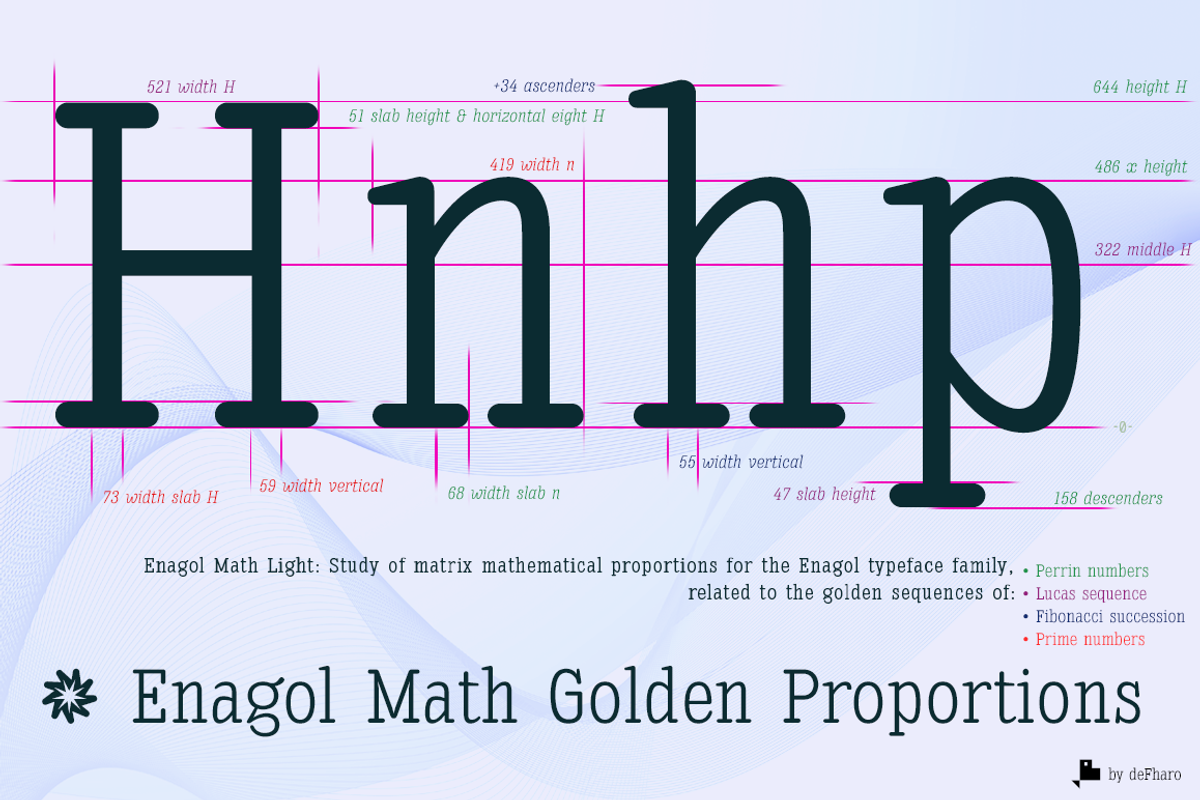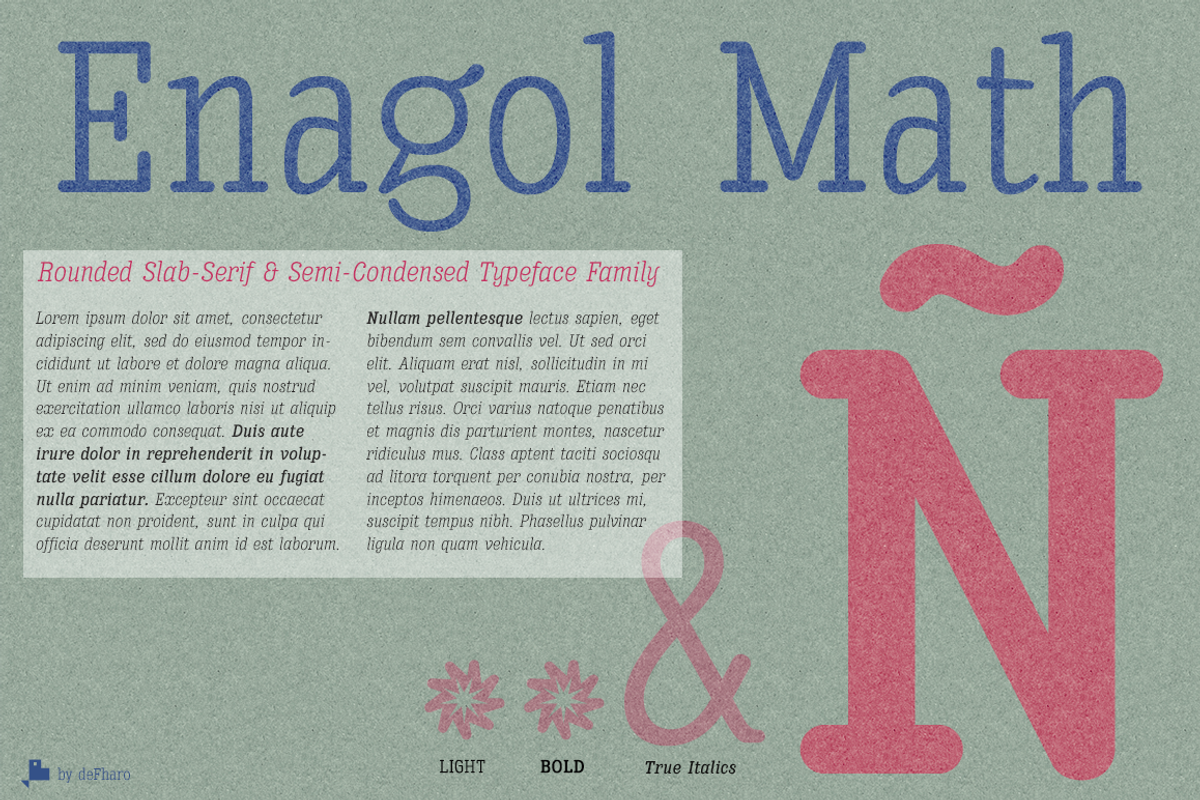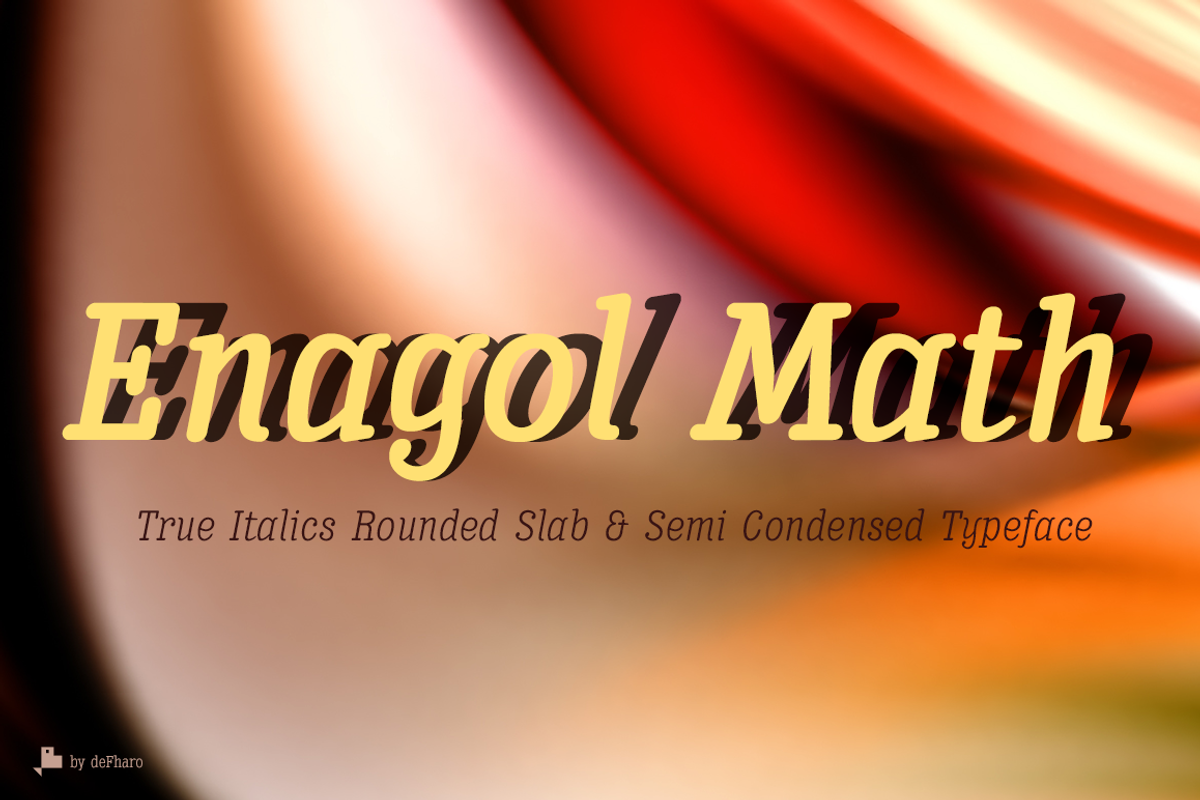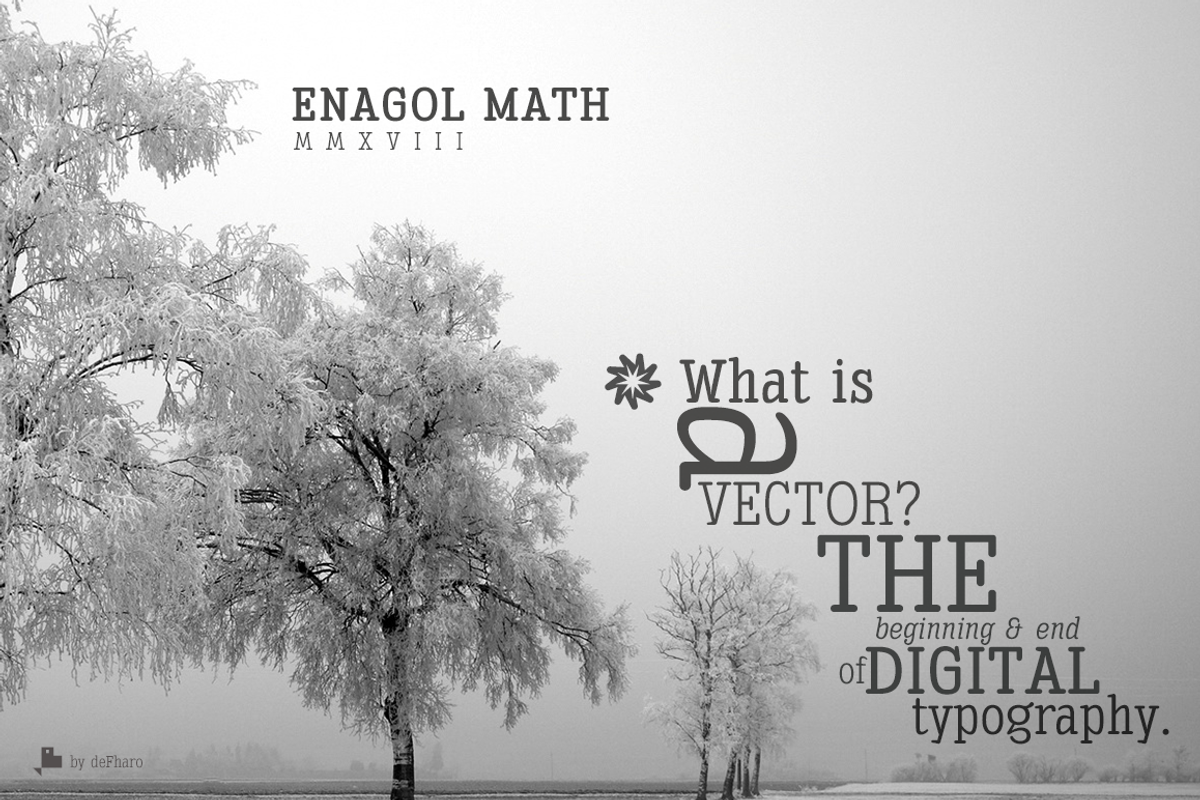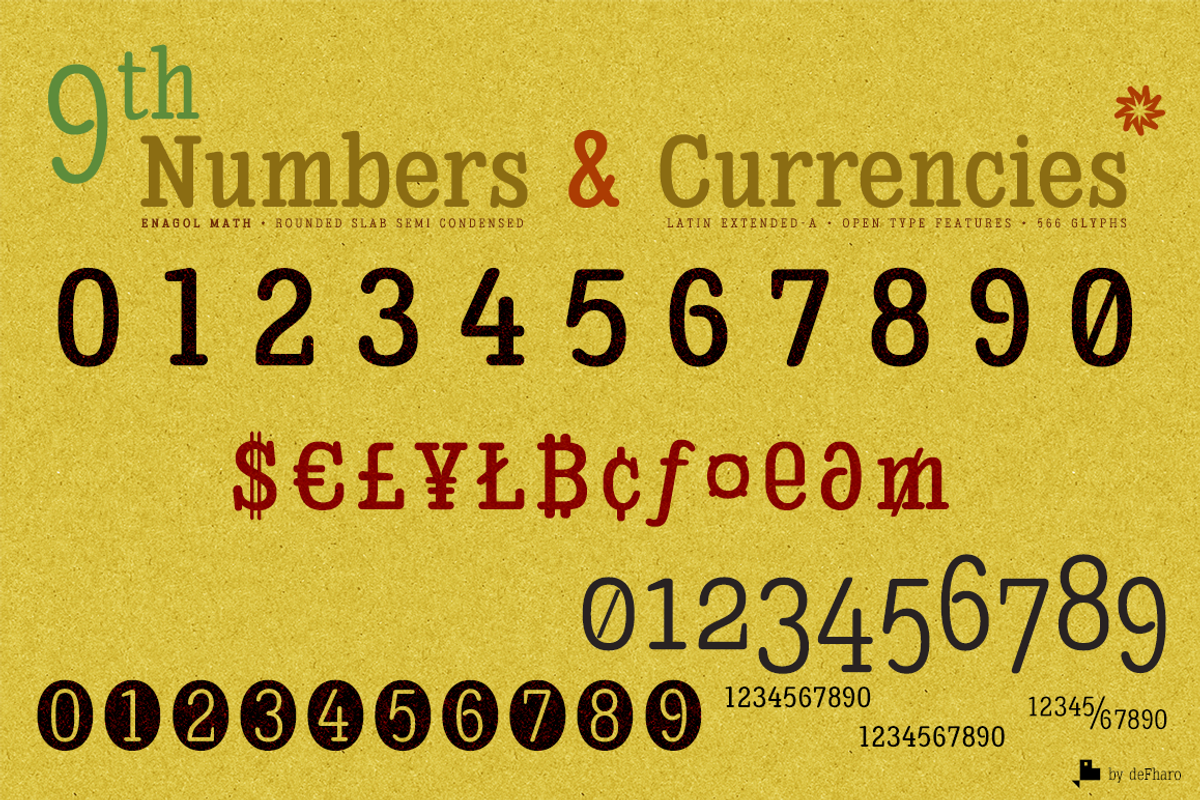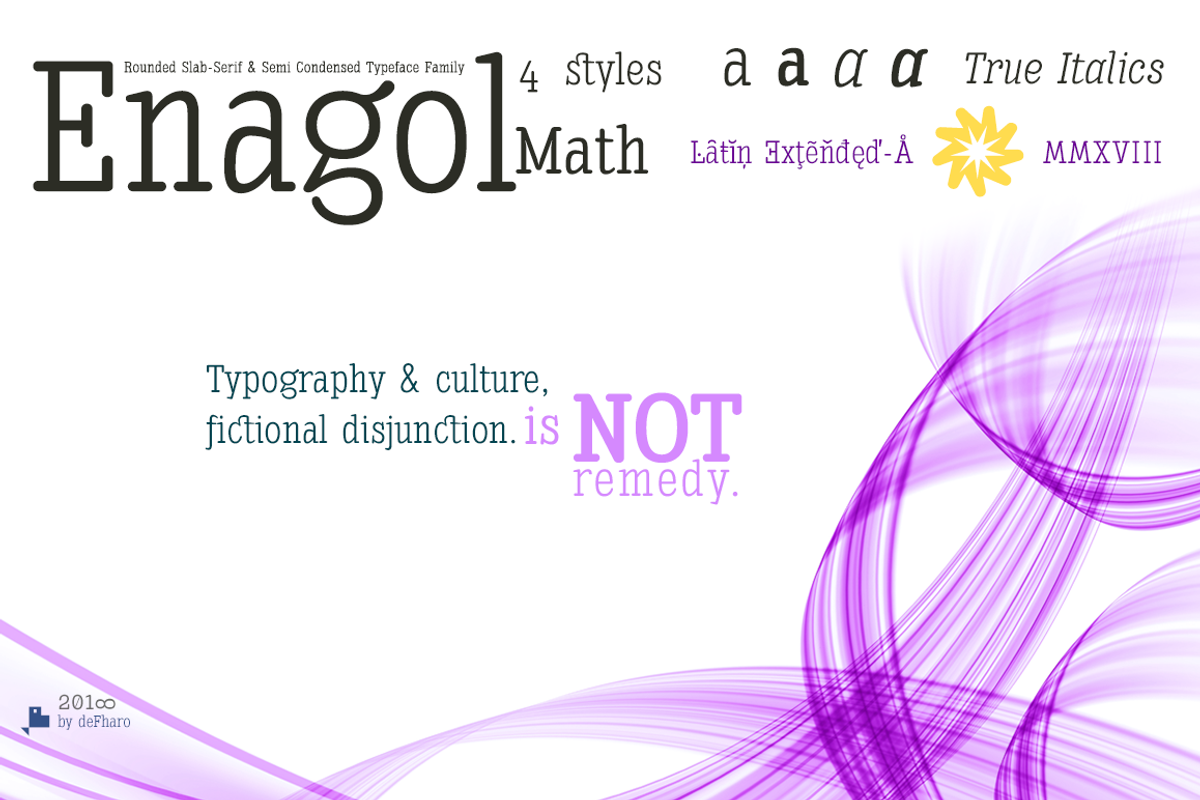
Enagol Math Rounded -4 fonts-
The Enagol Math consists of 2 weight plus True italics. It is a typeface with rounded Slab-Serif of Semi-Condensed proportions.
I have composed all the proportions of the character based on a study of mathematical proportions related to the golden sequences of Perrin, Lucas and Fibonacci. From an initial matrix of golden proportions applied in the letters 'H' for capital letters and 'n' for lowercase letters, calculated for the versions of the extremes of the Light and Bold type, below I do the whole calculation of proportions using my formula of three axes.
For the Italic versions I have drawn a complete set of lowercase letters that give these fonts an aspect close to the Italic writing. In these versions I have also applied many optical corrections to balance the deformations created in many curves by the mere inclination of the letters, which in the case of this type is 11°.
Light & Bold + True Italics (4 fonts)
Enagol Math includes the symbol of Bitcoin and currency symbols.
OpenType Features: Slashed Zero, Capital Spacing, Alternate Annotation Forms, All Alternates, Denominators, Additional languages, Superscript, Superiors, Superior letters, Subscript, Standard Ligatures, Historical Ligatures, Scientific Inferiors, Ordinals, Oldstyle Figures, Numerators, Discretionary Ligatures, Localized Forms, Kerning, Inferiors, Historical Forms, Fractions, Extended Fractions.